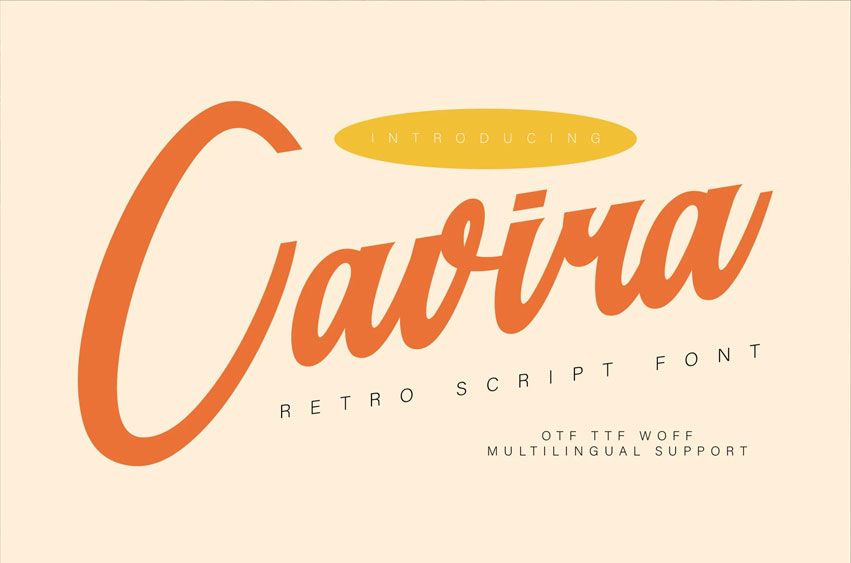
Cavira Font is an elegant and sophisticated script font, designed to evoke a sense of luxury and refinement. With its flowing curves and graceful strokes, it blends modern fluidity with timeless appeal.
Ideal for high-end branding, invitations, and any project that requires a touch of class, Cavira stands out with its versatility and distinct personality.